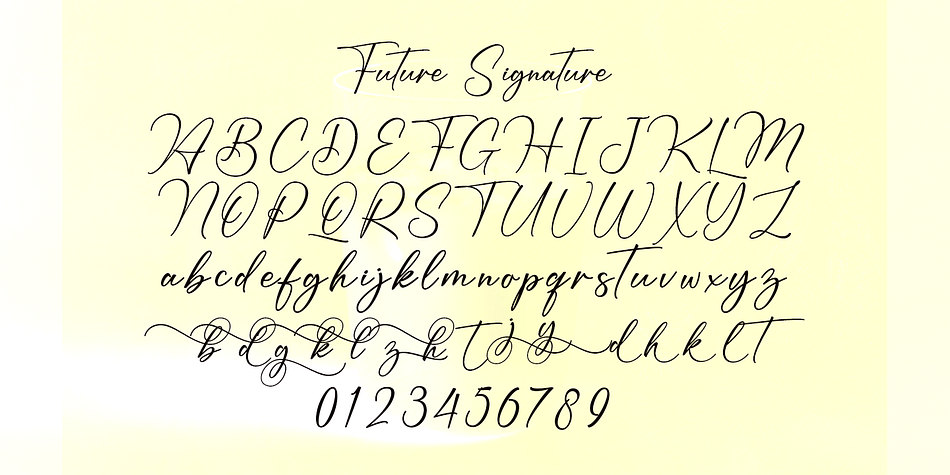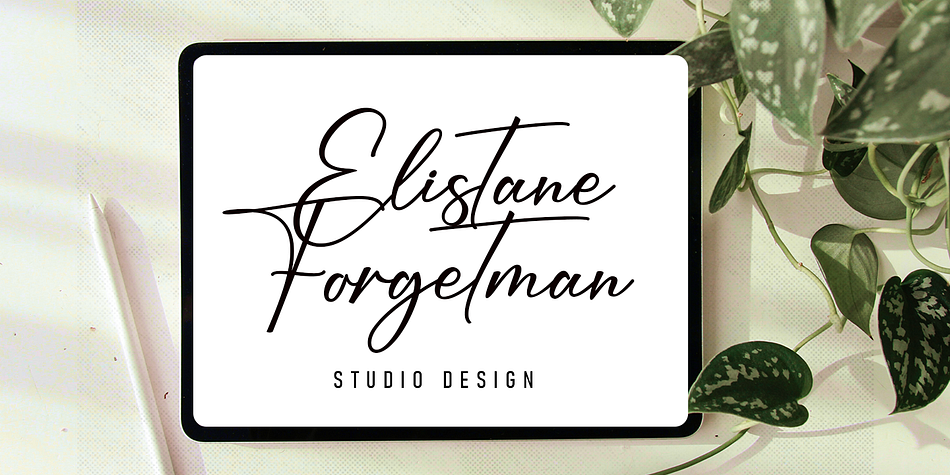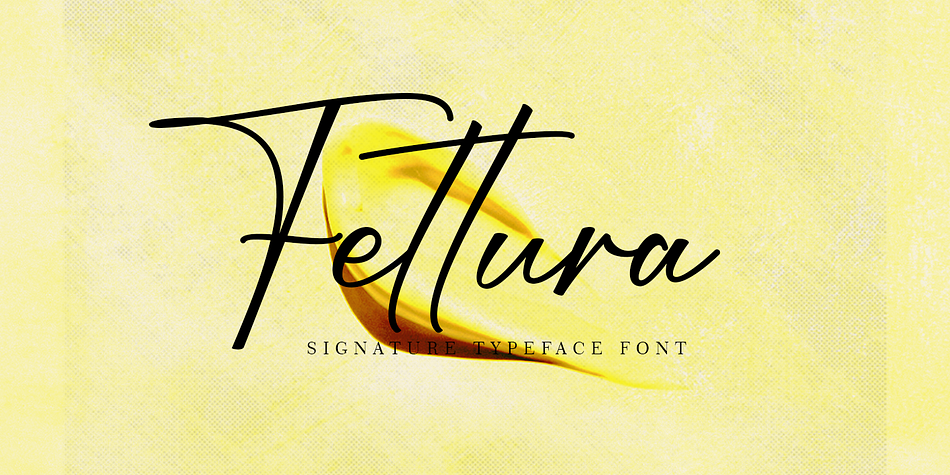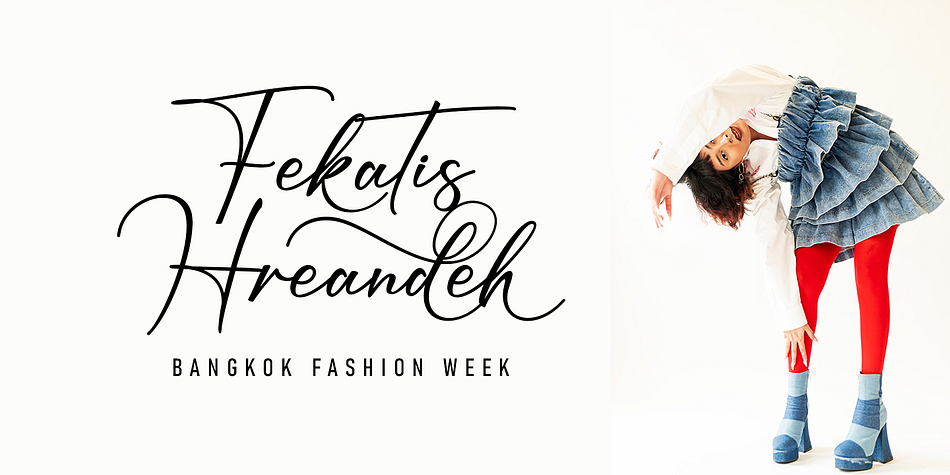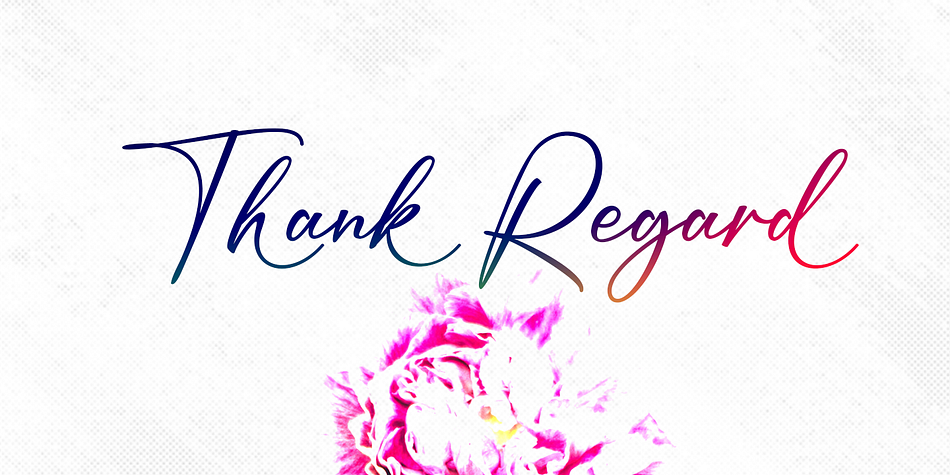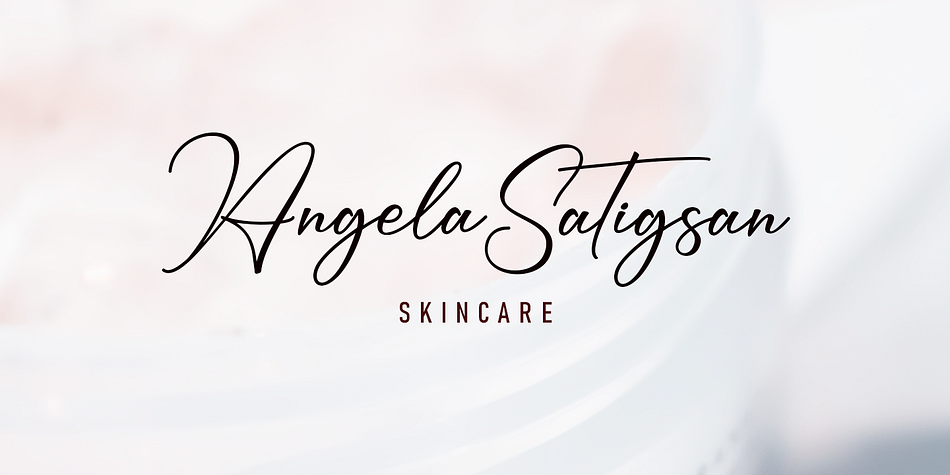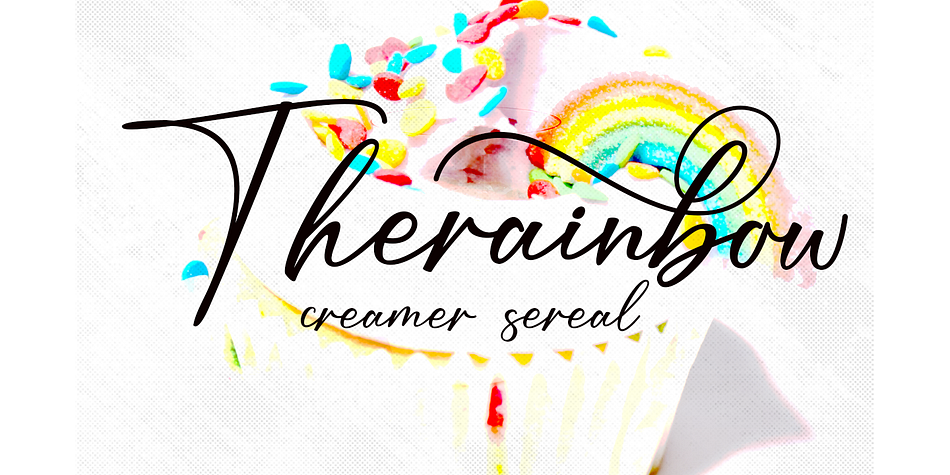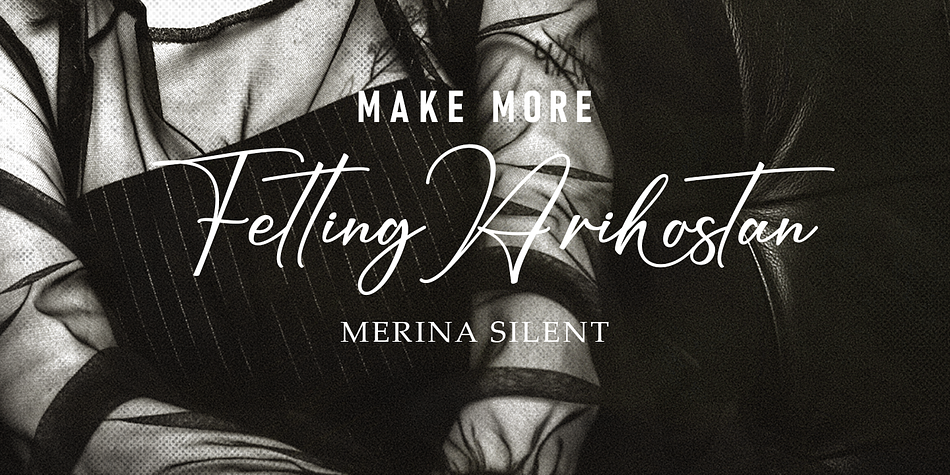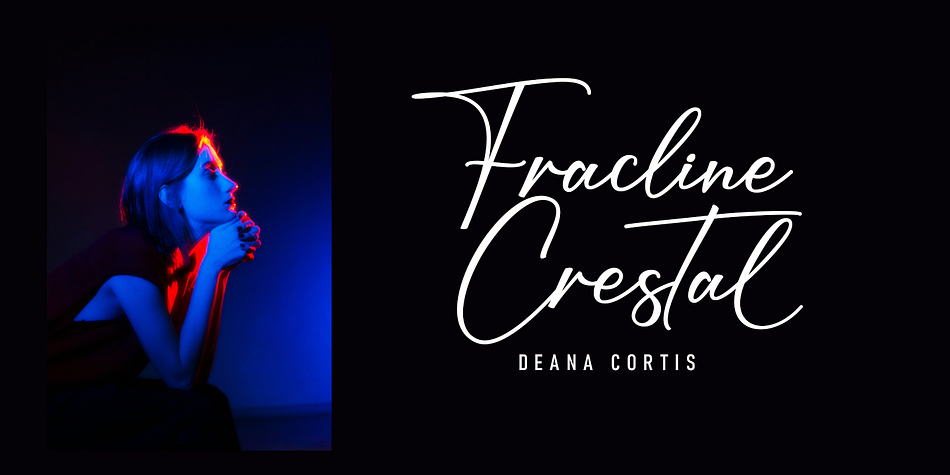
Fettura
Fettura is a modern calligraphy font family published by Gatype.
Fettura Signature is a modern calligraphy font, each letter is carefully crafted to make your text look beautiful. With a modern script style, this font is suitable for a variety of projects, for example: invitations, greeting cards, posters, business cards, quotes, blog headers, branding, logos, fashion, clothing, letters, stationery and more!
Fettura includes Stylistic OpenType alternatives, ligatures, and international language support.